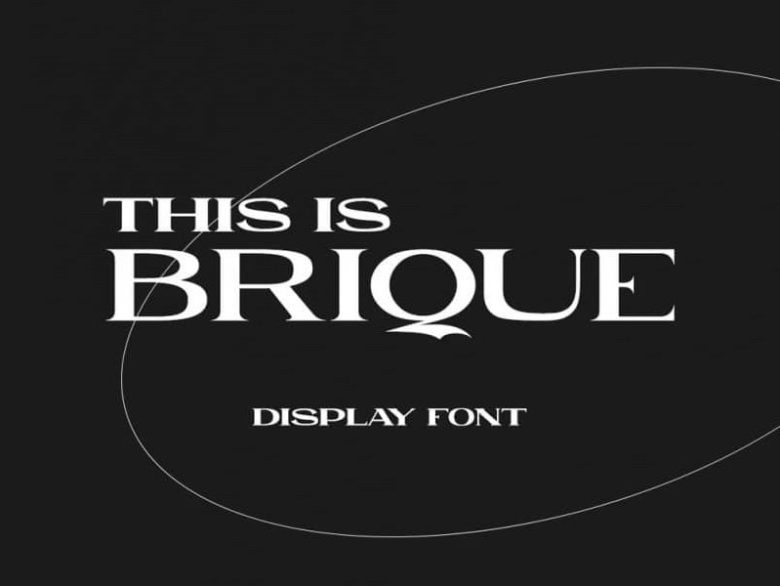
Brique Font
Brique Display Font is a condensed display typeface. It’s comes with a unique and strong style. Based on the square shape that makes this font look consistent but not too stiff. It’s carries a strong message making it suitable as a title text or sub text. Brique elegant serif and beatifull font for display. This font not include lowercase and some symbols and punctuation. I will update as soon as possible.